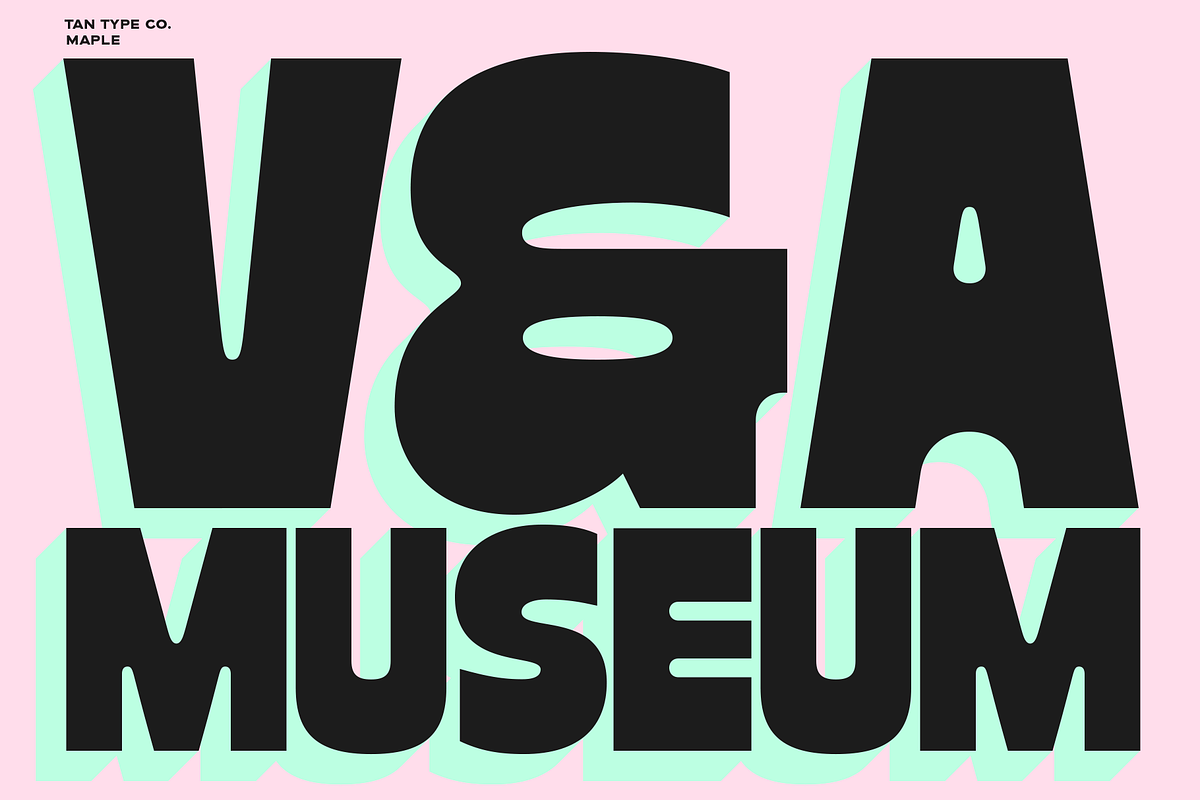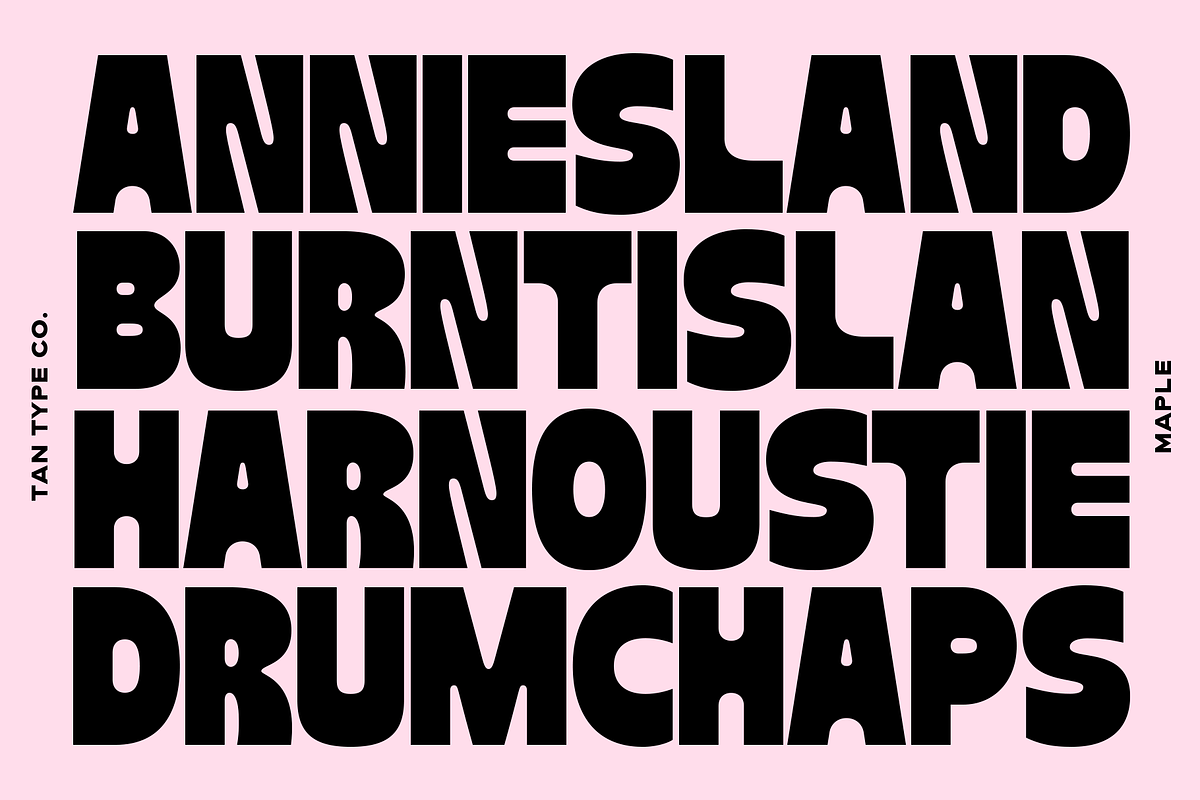
TAN - MAPLE
TAN-MAPLE is a bold, heavy typeface that’s all about making an impact. Chunky and blocky at its core, it owns that confident, in-your-face style without trying too hard. The shapes are solid and grounded, but there’s still a sense of flow that keeps it from feeling stiff. Maple is modern, edgy, and full of attitude—a font made to stand loud on posters, headlines, and any project that wants to look unapologetically bold.